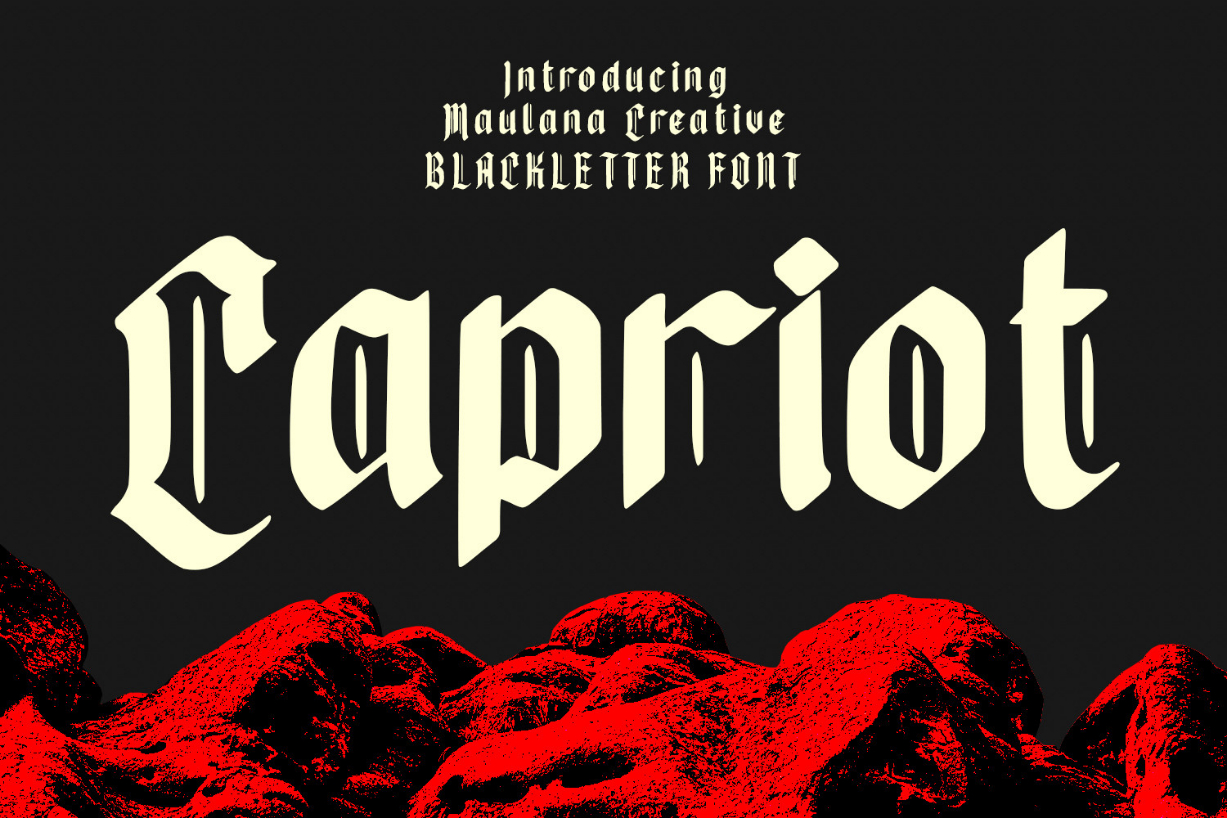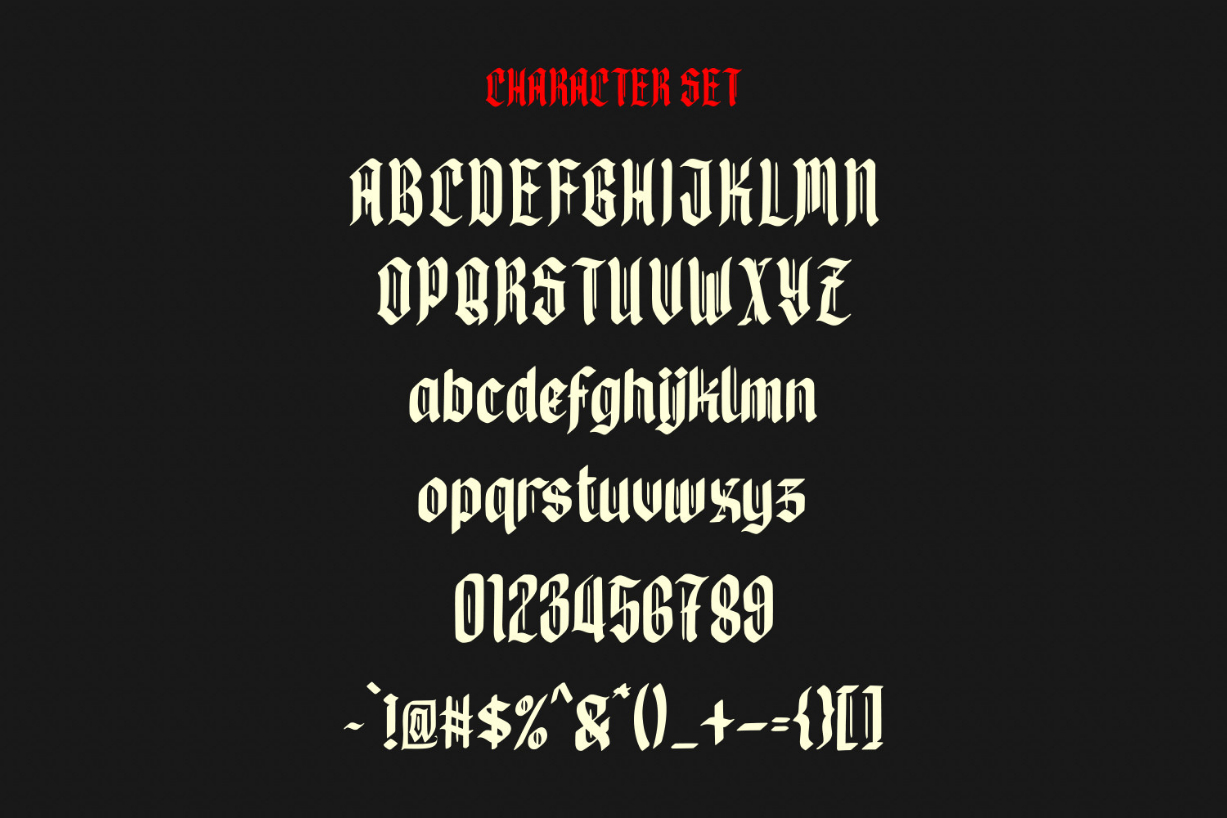
About Capriot Font
Capriot is modern and stylish blackletter font. No matter the topic, this font will be an incredible asset to your fonts’ library, as it has the potential to elevate any creation.